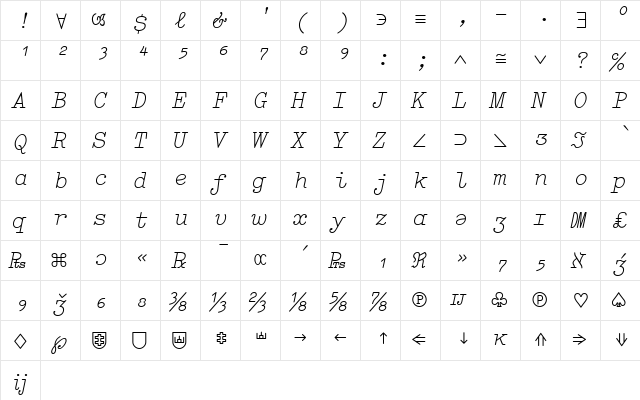
Elementa Symbol ItalicMedium
Design Context for Elementa Symbol Typeface
Elementa Symbol takes a measured approach to typography — its balanced proportions and neutral character make it a reliable workhorse for both digital and print work. Its italic angle brings a sense of urgency and motion to the letterforms.
Pro Tip: Try Elementa Symbol for annotation and caption copy alongside an upright companion — the contrast in angle creates a dynamic but ordered typographic system.